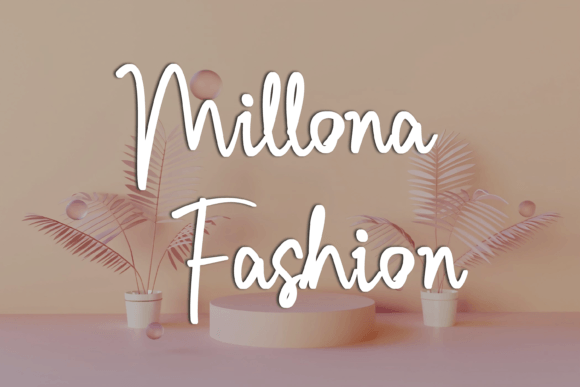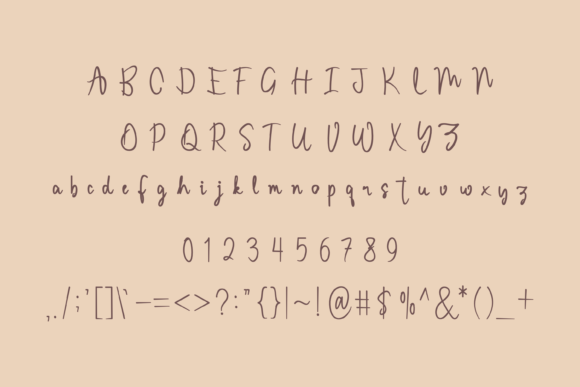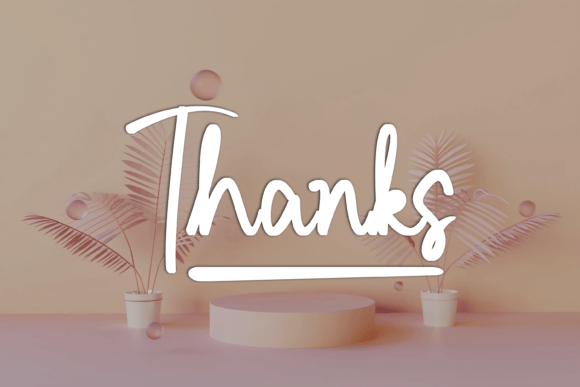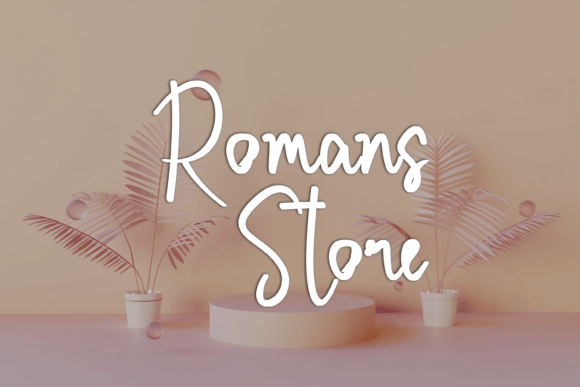
Gathors Font
About Gathors Font
**Gathors**: *Where Elegance Meets Delicacy*
Gathors isn’t just a font; it’s a masterpiece of delicate script design that radiates elegance and class, meticulously crafted to infuse your designs with beauty and a refreshing allure. With its graceful and refined characters, this script font effortlessly adds a touch of sophistication to your creative projects.
What sets Gathors apart is its remarkable ability to seamlessly blend elegance with a delicate charm. The font’s meticulously crafted characters exude an air of grace and authenticity, making it the perfect choice for projects that require a beautiful and refreshing look. Gathors is the font that can effortlessly elevate your designs, leaving a lasting impression of beauty and elegance.
Gathors strikes the perfect balance between timeless style and a delicate touch, making it a versatile and captivating choice for projects that demand both sophistication and freshness.
In branding and logos, Gathors adds a unique sense of character and refinement, setting your brand apart and making it memorable. It possesses the power to convey a brand’s elegance and values, resonating effectively with its target audience.
For invitations, stationery, and elegant designs, the font’s graceful characters enhance the visual impact of your content, making it more captivating and memorable. Whether you’re working on wedding invitations, branding materials, social media graphics, or any other visual content, Gathors brings an air of timeless beauty and sophistication to your projects.
One of Gathors’ most remarkable qualities is its adaptability. It can transition seamlessly from a formal and polished tone to a more relaxed and friendly one, making it suitable for a wide range of creative applications. Its ability to evoke elegance and delicacy ensures that it remains a cherished choice for designers and creators across diverse industries.
In summary, Gathors is more than just a font; it’s a design asset that masterfully combines elegance with delicate charm. Its unique blend of graceful characters and timeless allure positions it as an indispensable tool for anyone seeking to infuse sophistication and freshness into their visual communication. Embrace the elegance and delicacy of Gathors, and watch your designs come alive with beauty and enduring class.